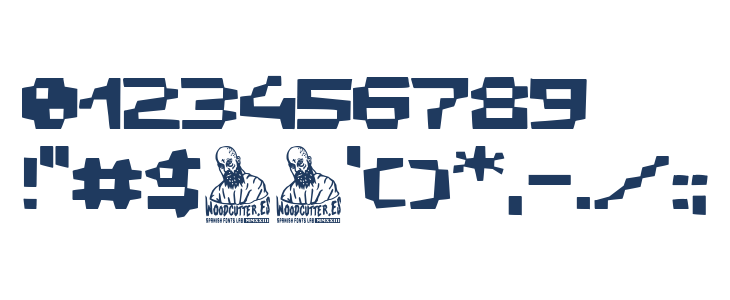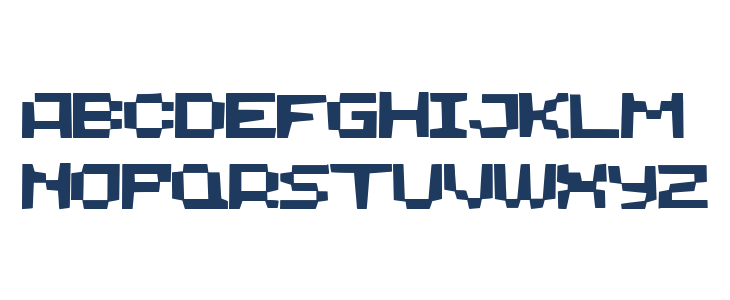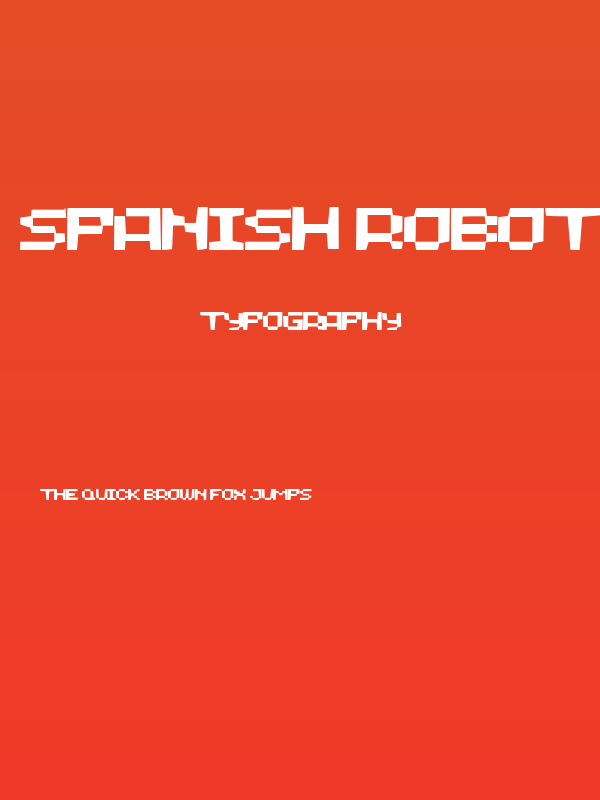
Spanish Robot Font
Spanish Robot Description
A geometric, angular display font with a robotic and mechanical appearance, featuring blocky letterforms and irregular edges that create a digital, futuristic feel. The characters are uppercase and lowercase, with consistent stroke thickness and minimal curves.
| Overall Style | Futuristic, Robotic, Decorative |
| Use Case | Headlines, Logos, Posters, Titles |
| Proposed Projects | Tech event posters, sci-fi book covers, video game titles, robotics branding, digital art projects. |